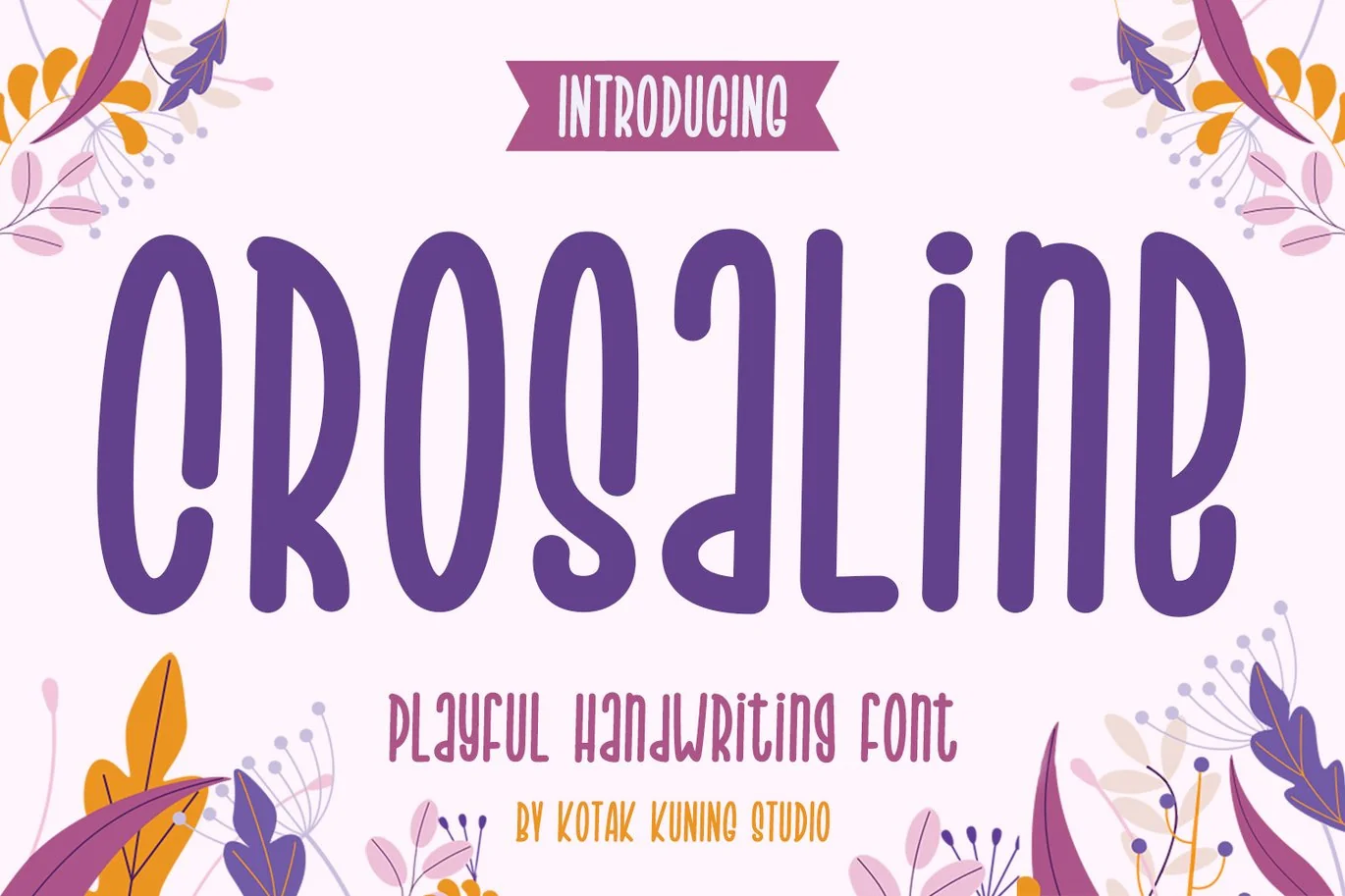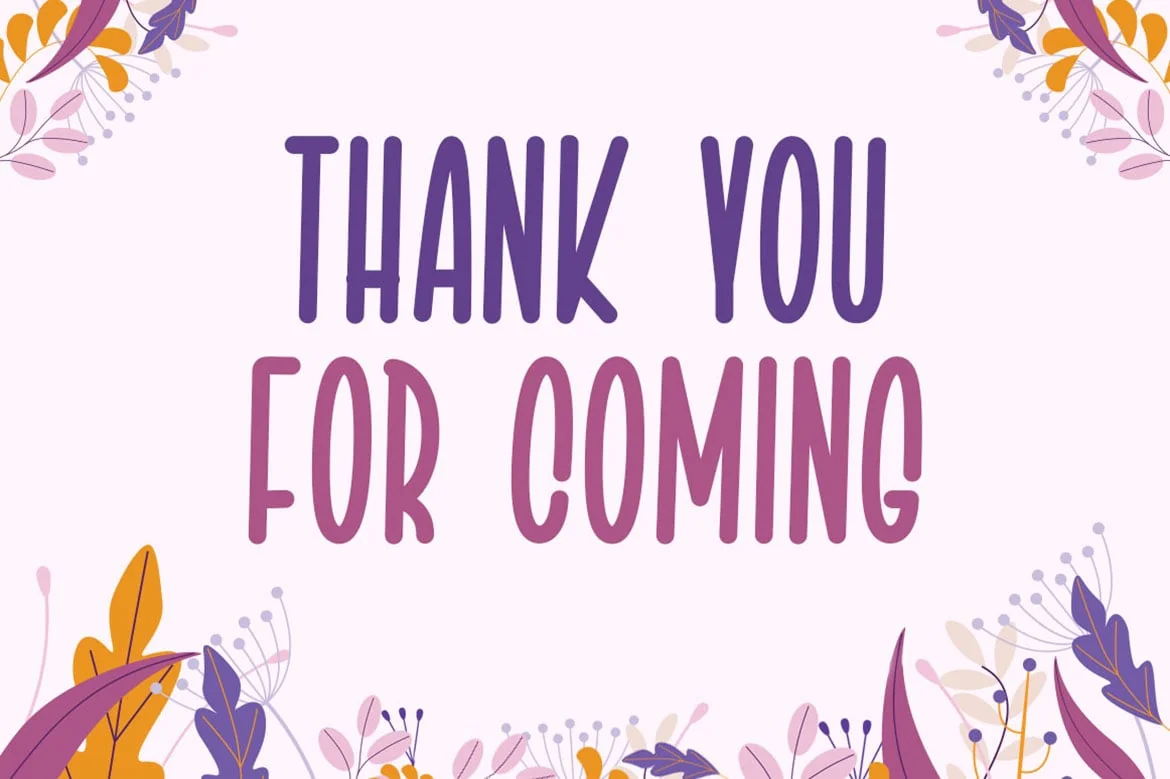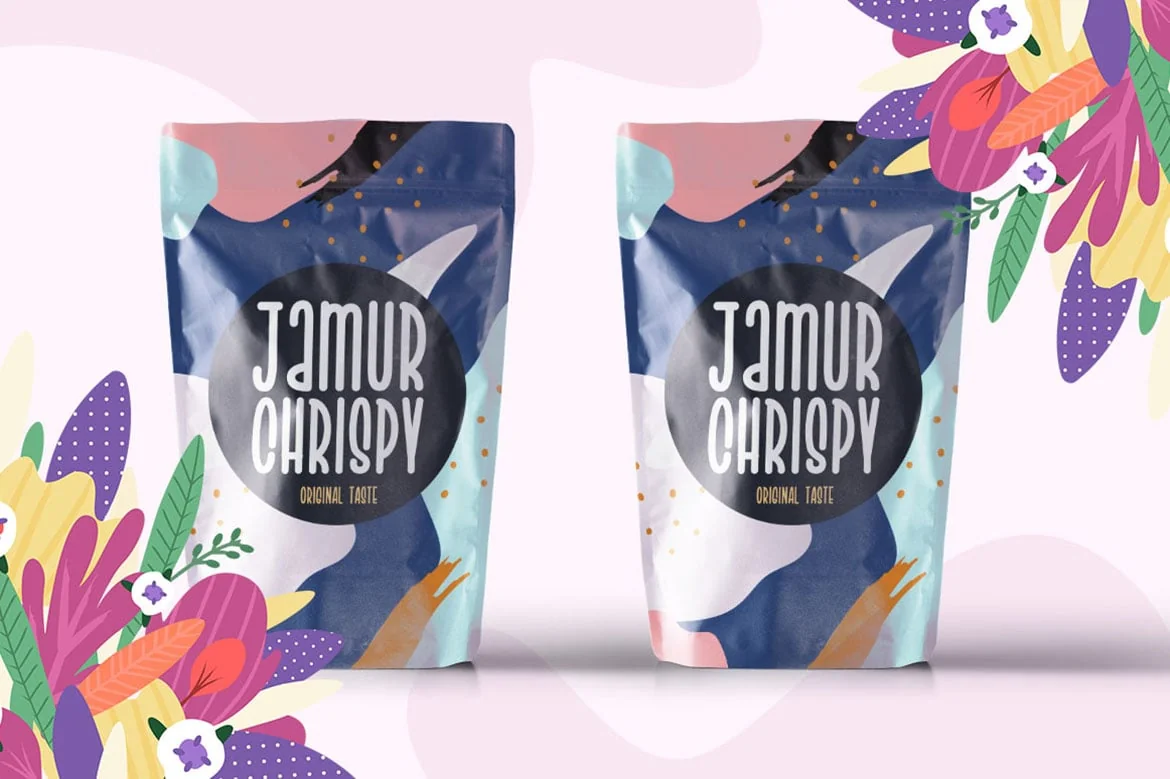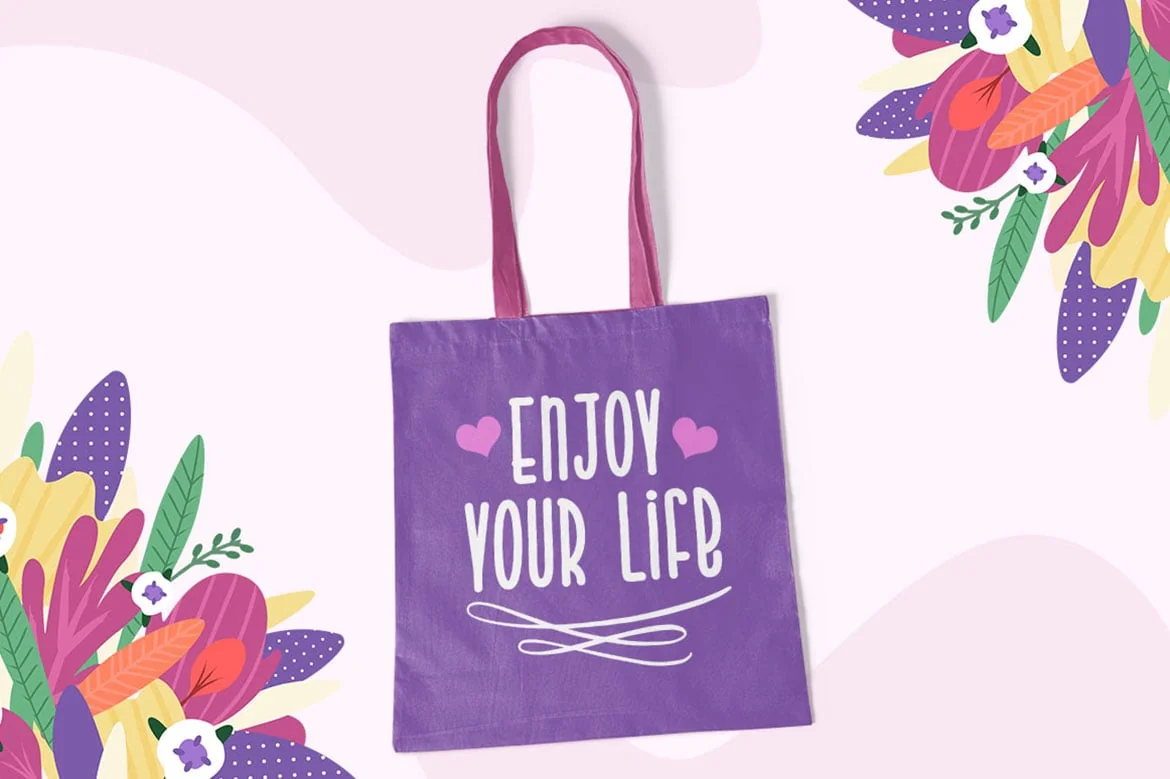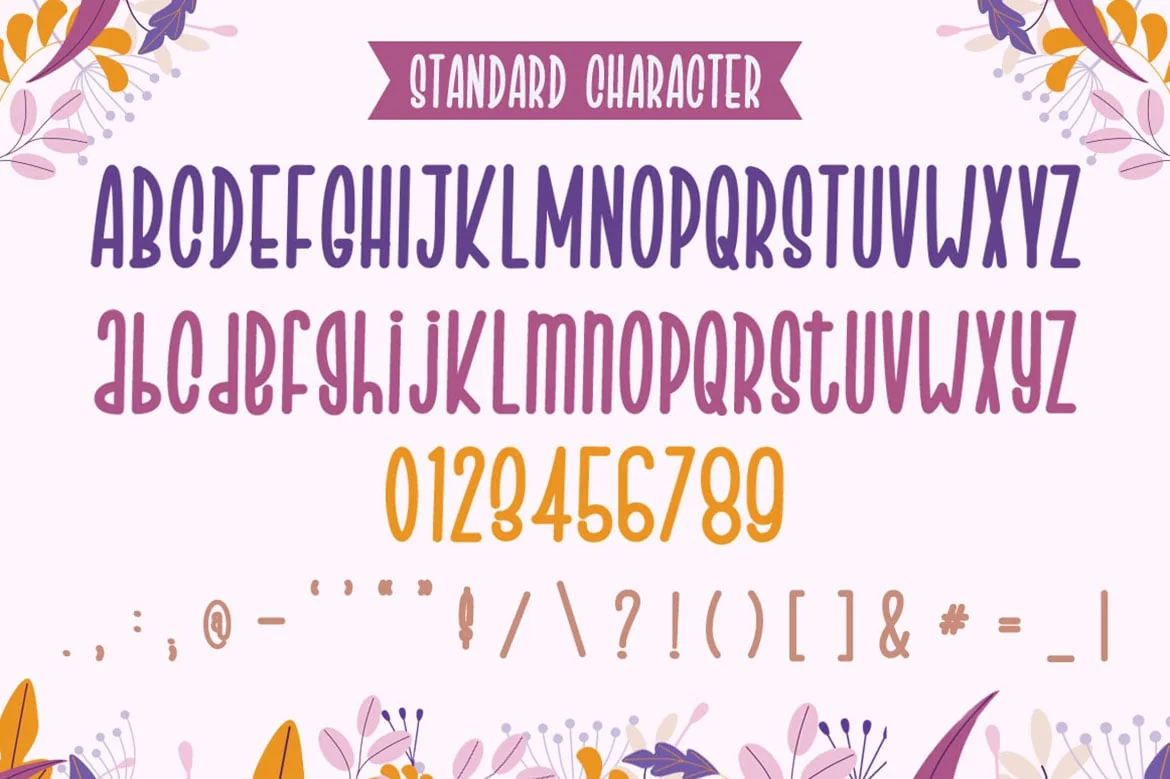
Crosaline – Playful Handwriting Font
Introducing Crosaline Font. A playful handwriting font. It has a unique and different style and will give your design a fun touch.
Crosaline would be perfect for logos & branding, photography, watermark, social media posts, advertisements, invitation, product designs, label, stationery, wedding designs, product packaging, special events, or anything that need handwriting taste.